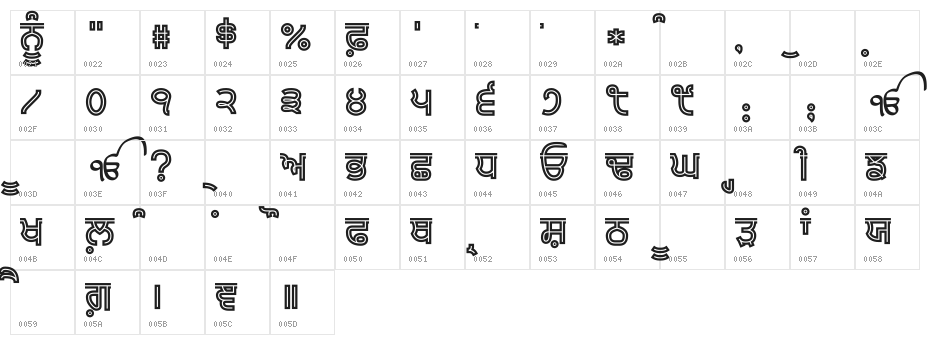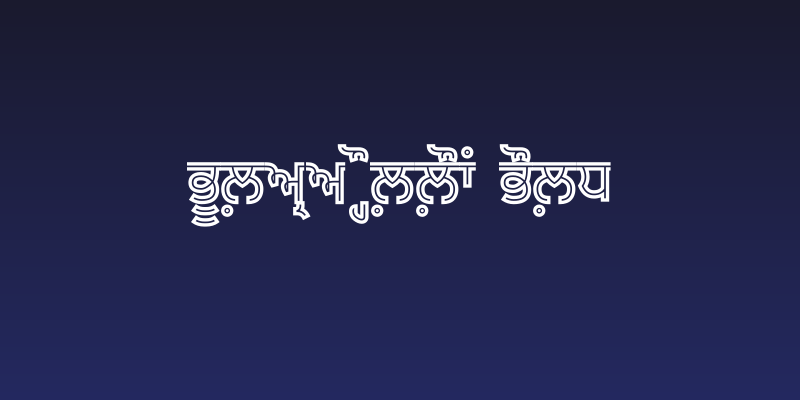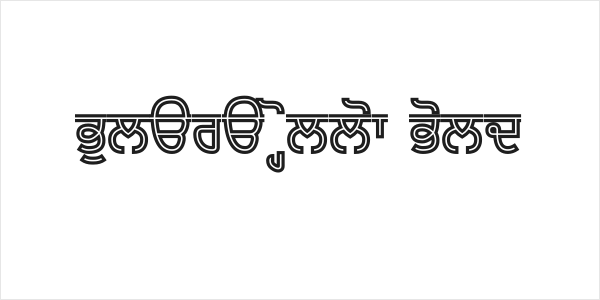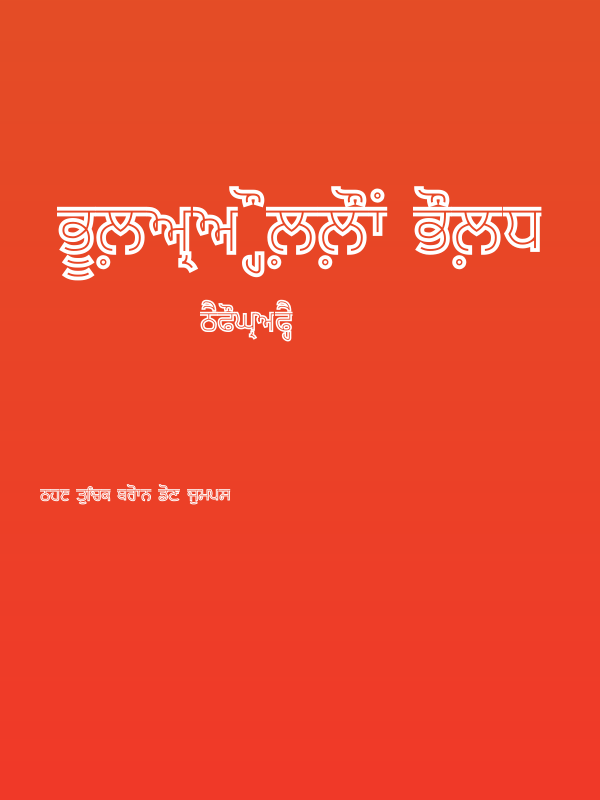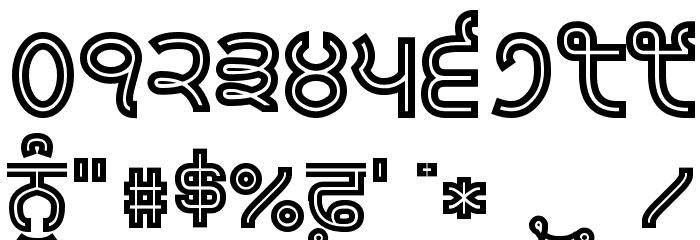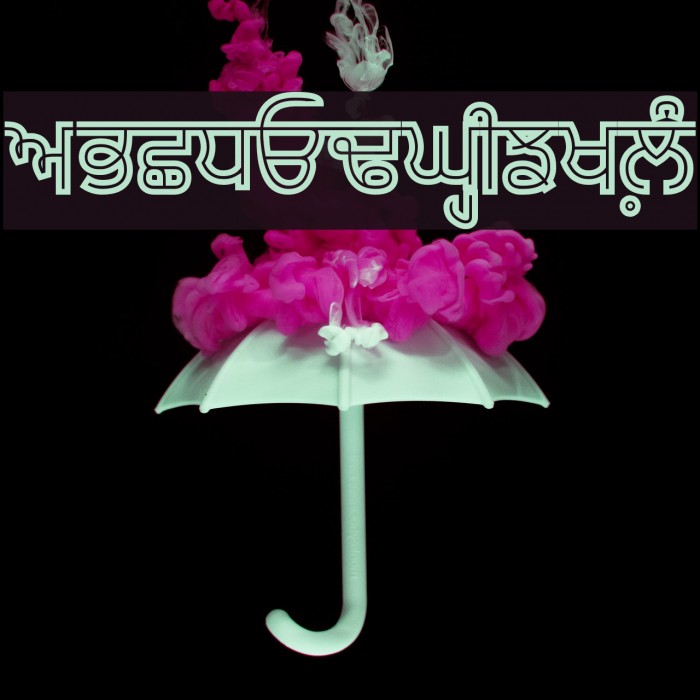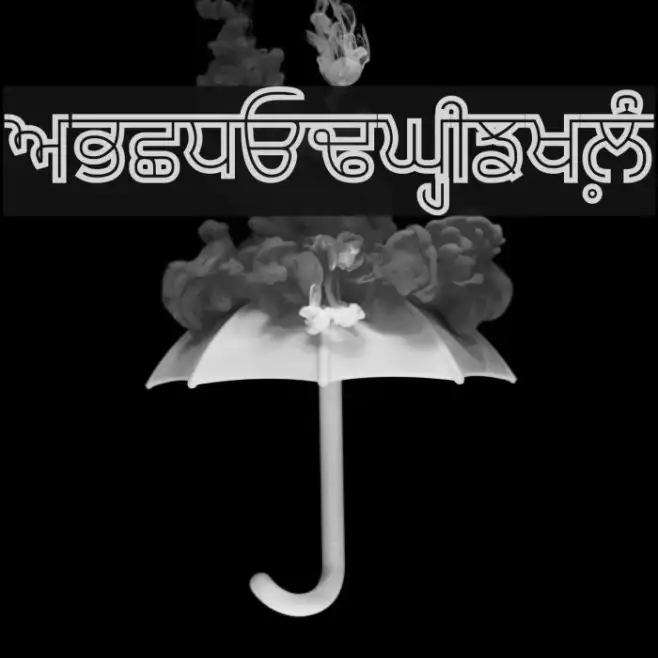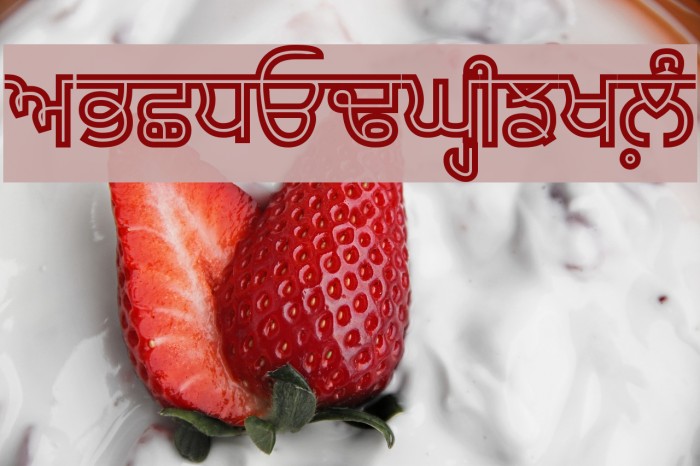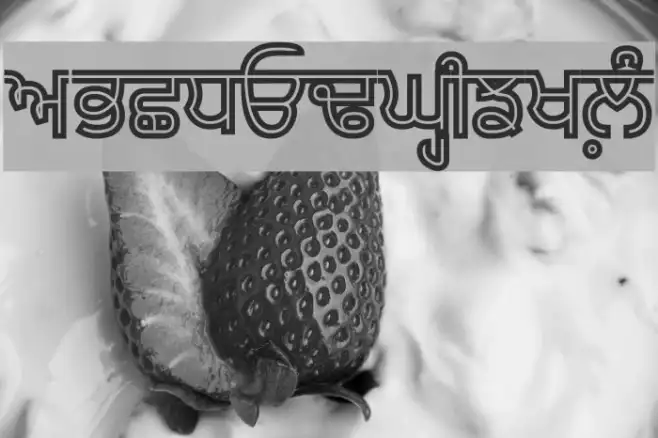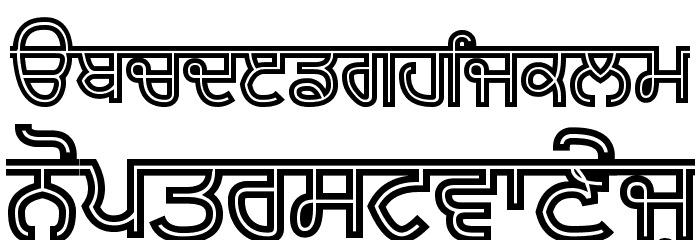
Bulara Hollow Bold Font
Bulara Hollow Bold Description
This font features a bold, hollow design with a strong presence. The characters are outlined, giving them a distinct and eye-catching appearance. The style is modern and decorative, suitable for making a statement in various design projects. The font maintains a consistent weight throughout, with medium contrast in the stroke thickness. The spacing between characters is normal, allowing for clear readability while still maintaining its unique style.
| Overall Style | Modern, Decorative |
| Proposed Projects | Ideal for headlines, posters, logos, and any design project that requires a bold and modern aesthetic. |